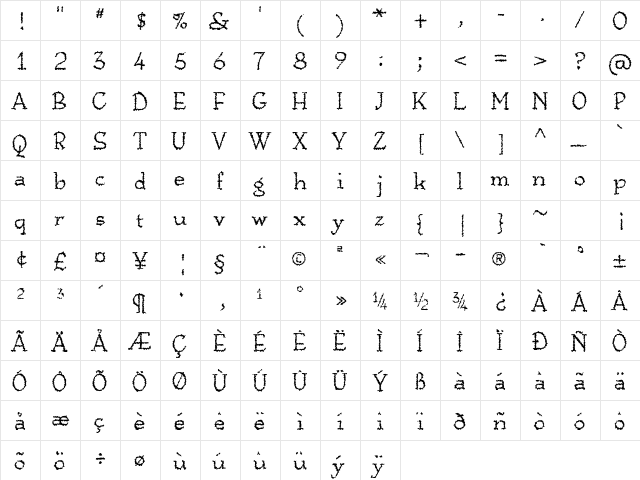
AnarckhieRagged Regular Font Preview
AnarckhieRagged Regular
AnarckhieRagged Regular Font Details
Design Context for AnarckhieRagged Typeface
AnarckhieRagged is a composed and adaptable typeface that performs quietly and consistently across a wide range of design contexts.